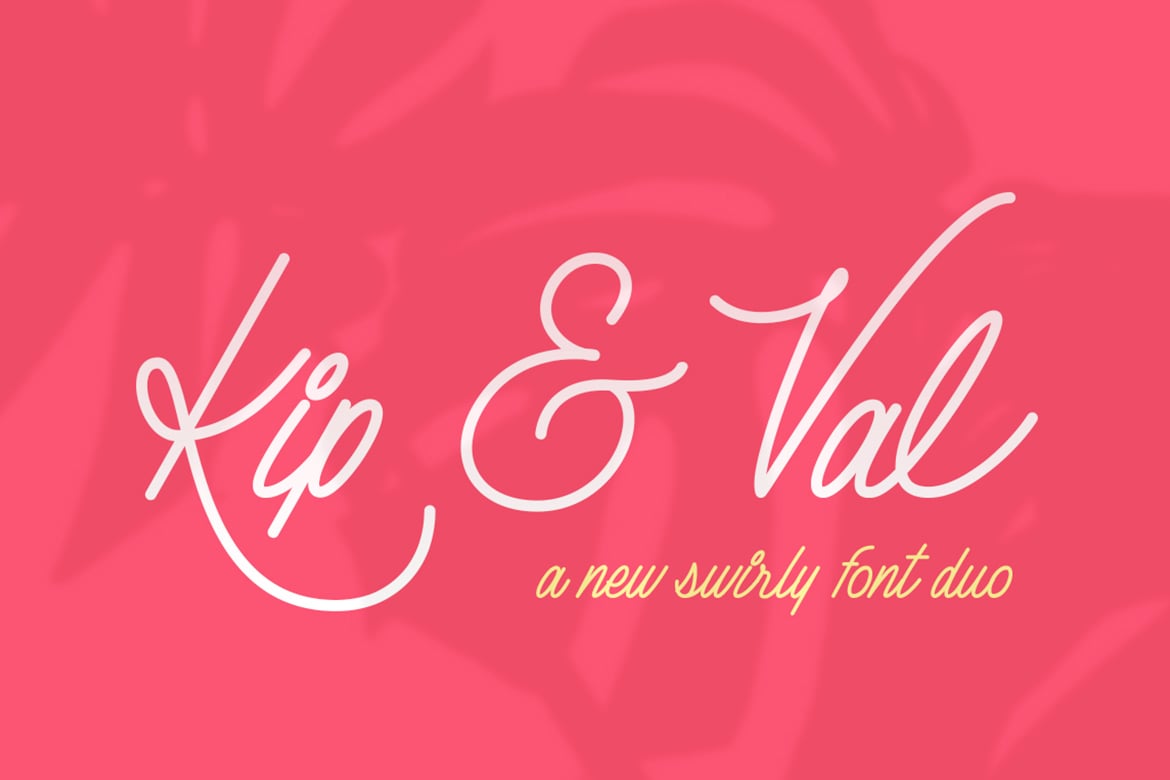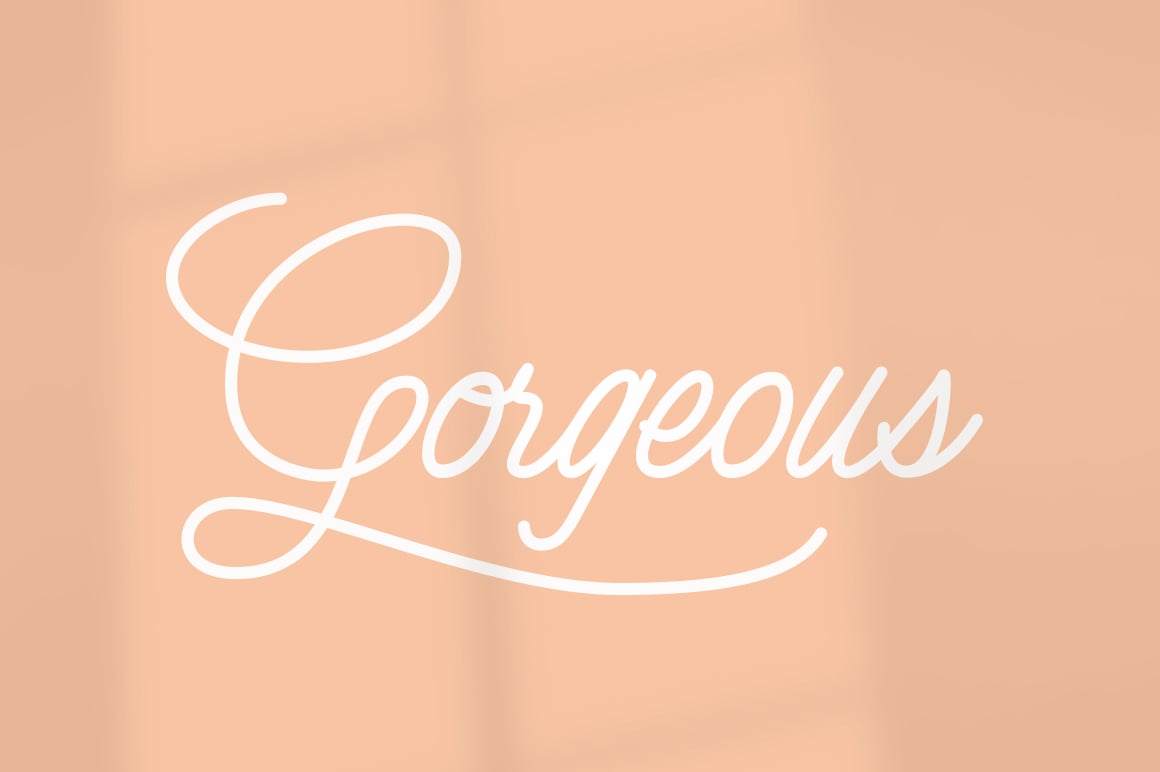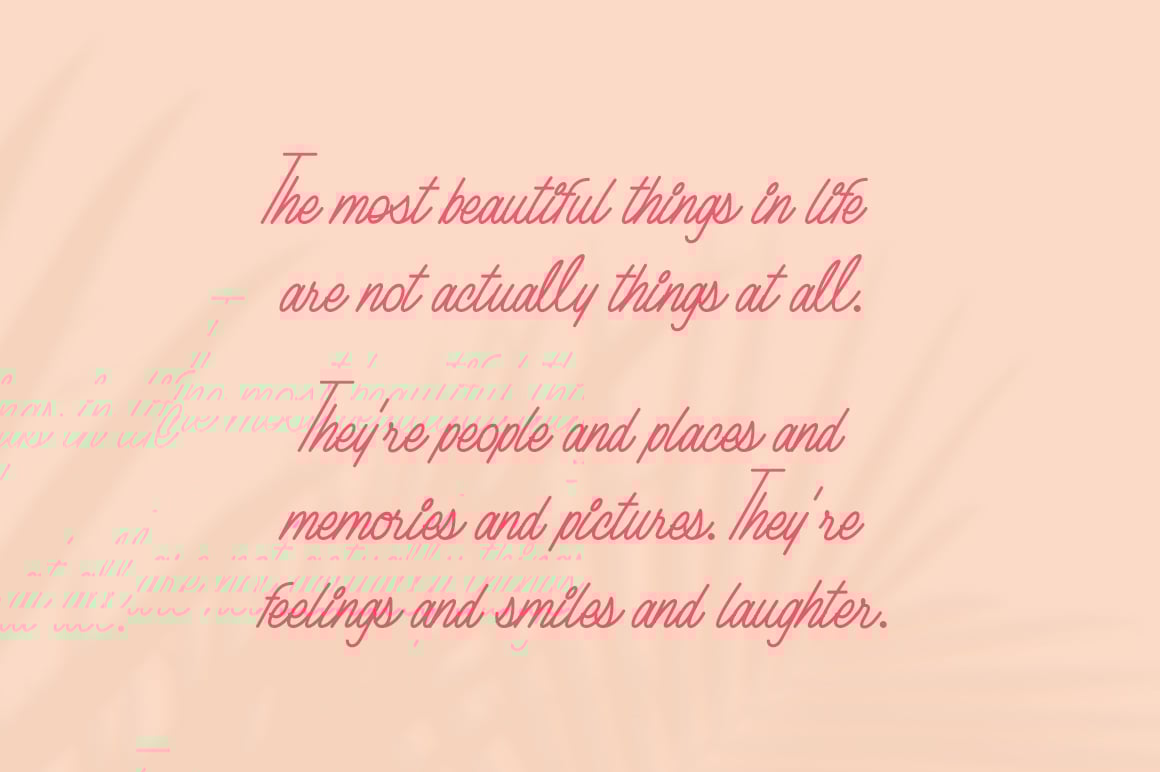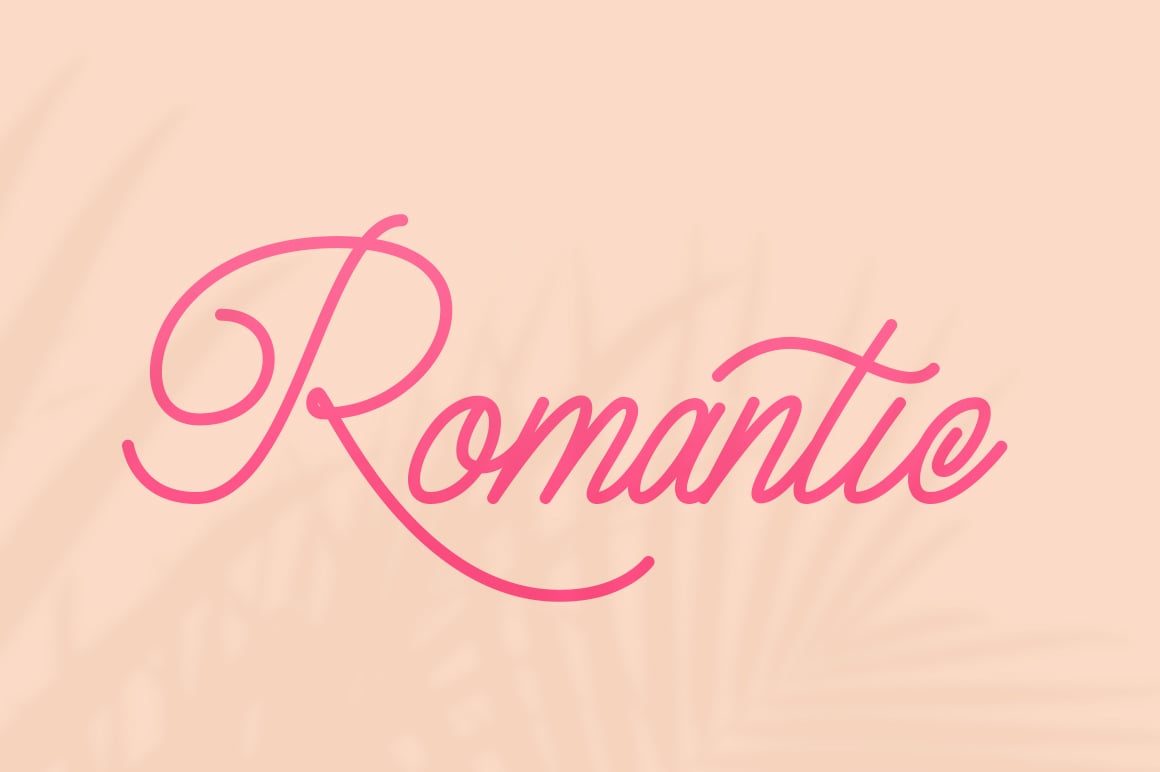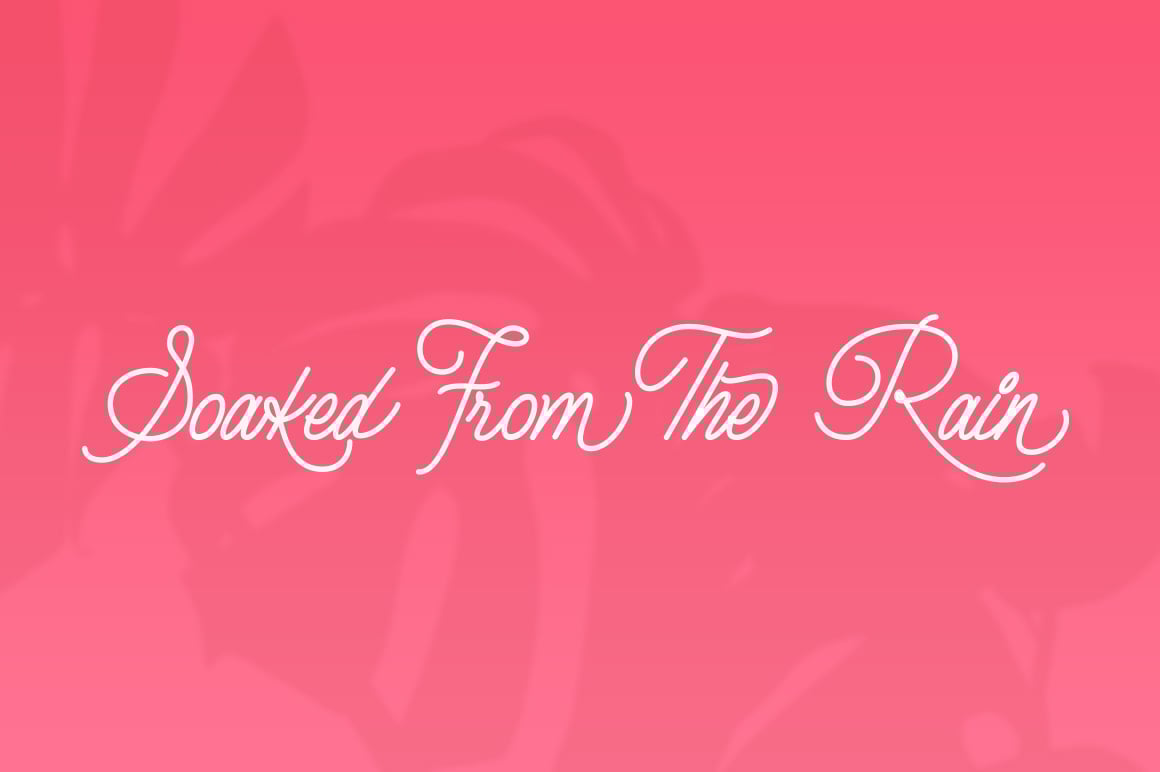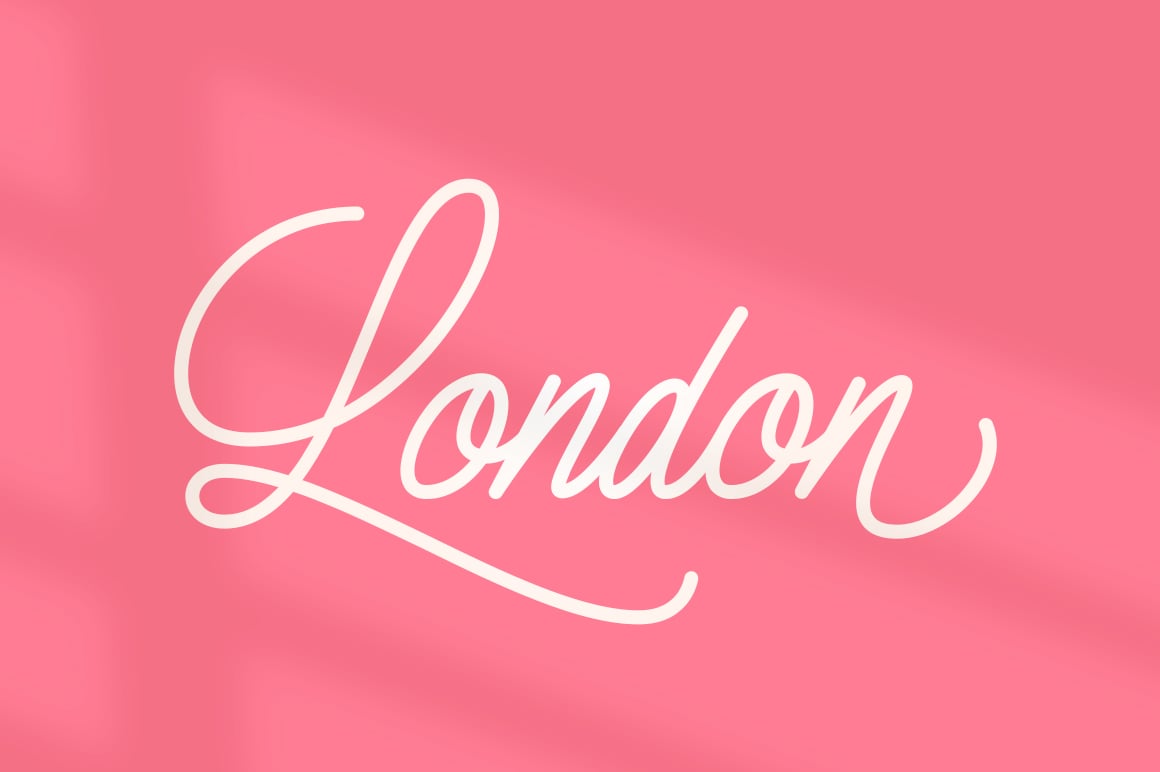
Kip & Val Script Font Duo
Kip and Val are two incredible new kids in the neighborhood who everyone wants to know! This font is packed full of lovely ligatures and sexy swashes for you to jazz up your new or existing work. Go on, give them a go!